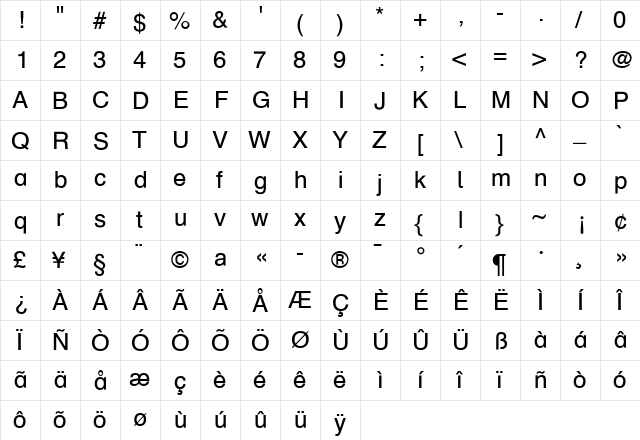
SchulbuchNord Normal
| Foundry | Copr. FontShop International GmbH |
Design Context for SchulbuchNord Typeface
SchulbuchNord takes a measured approach to typography — its balanced proportions and neutral character make it a reliable workhorse for both digital and print work.